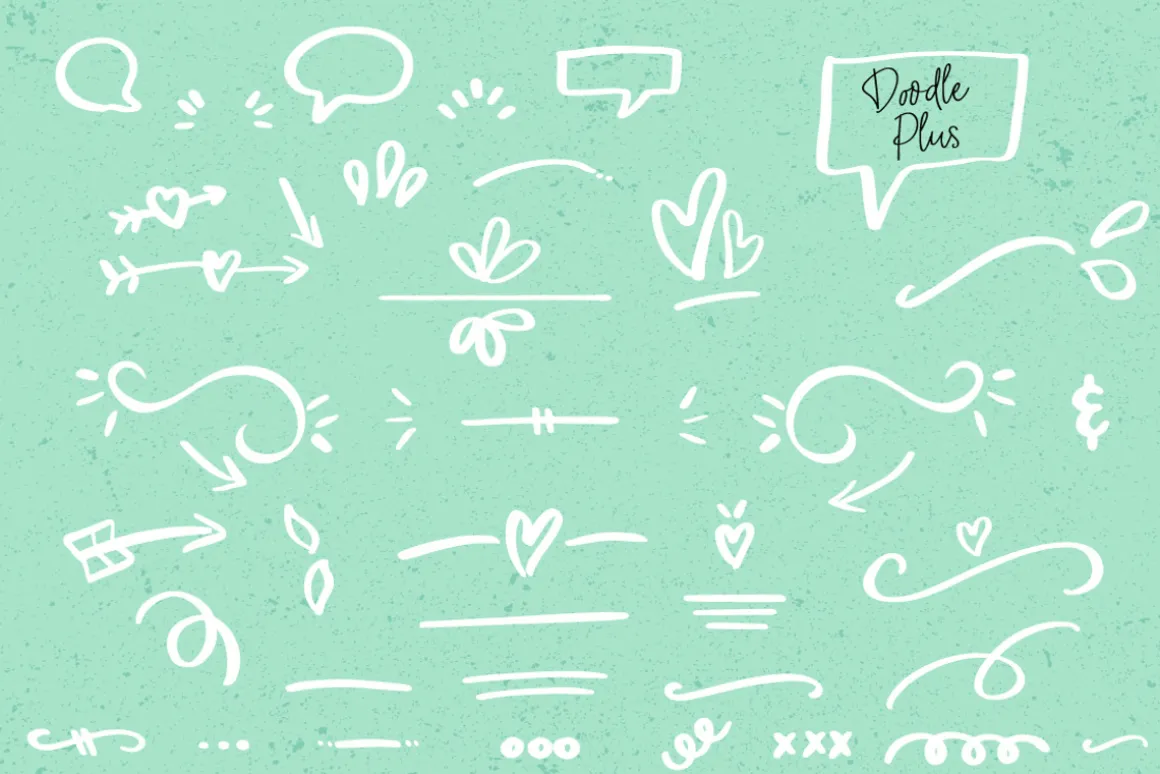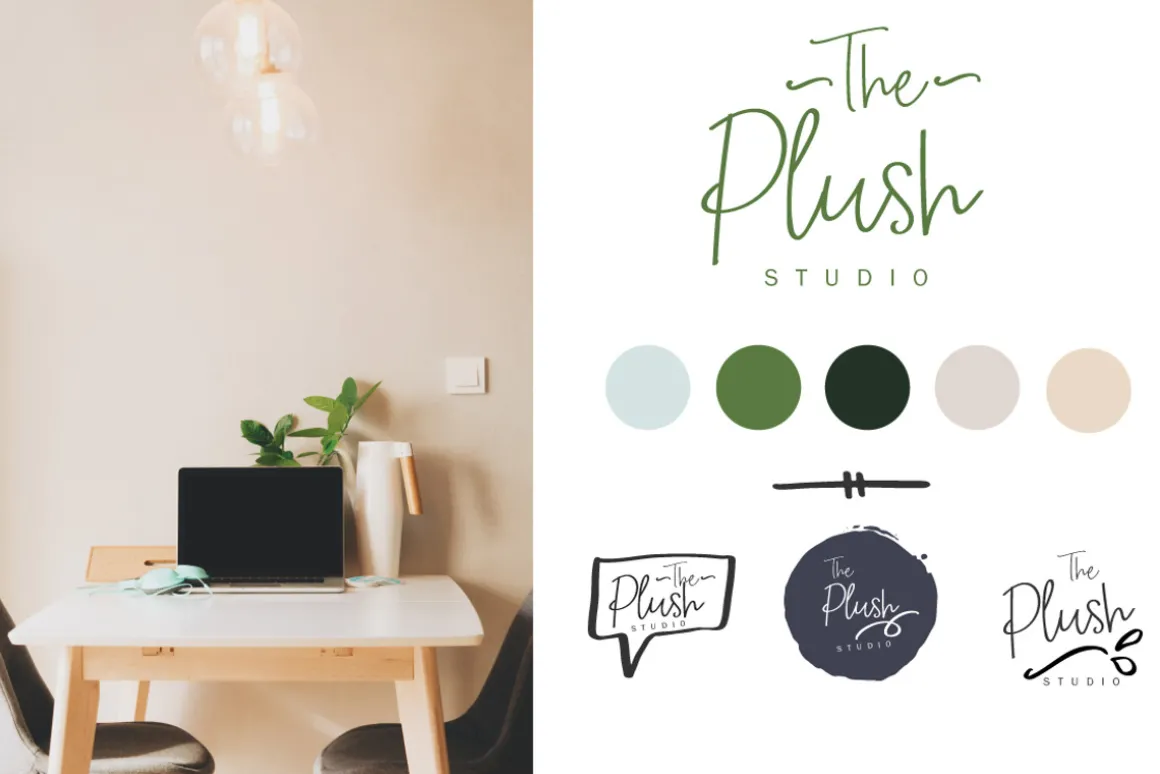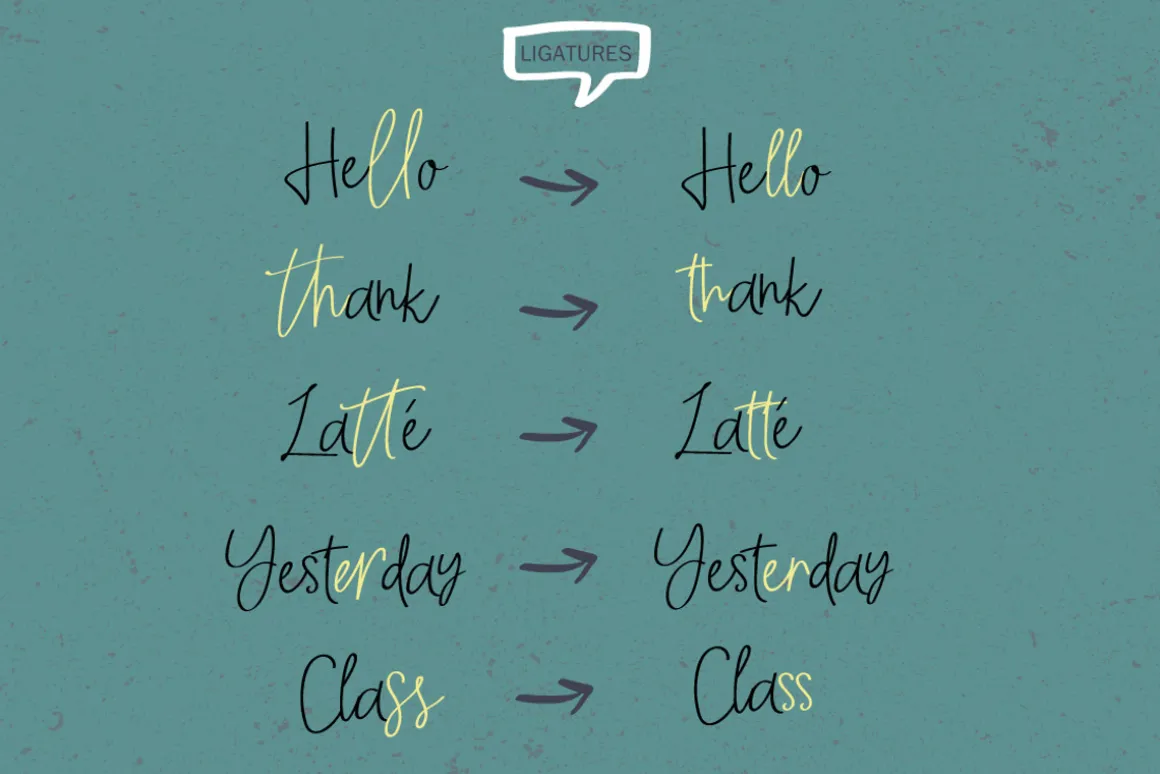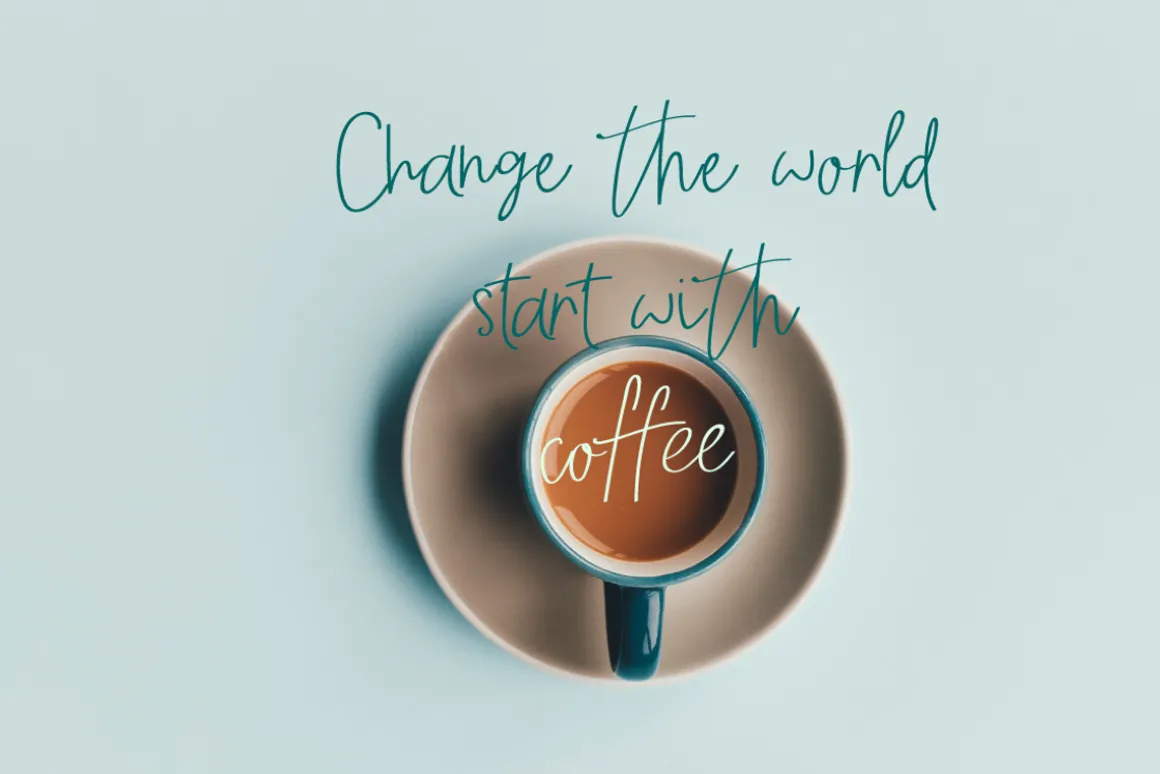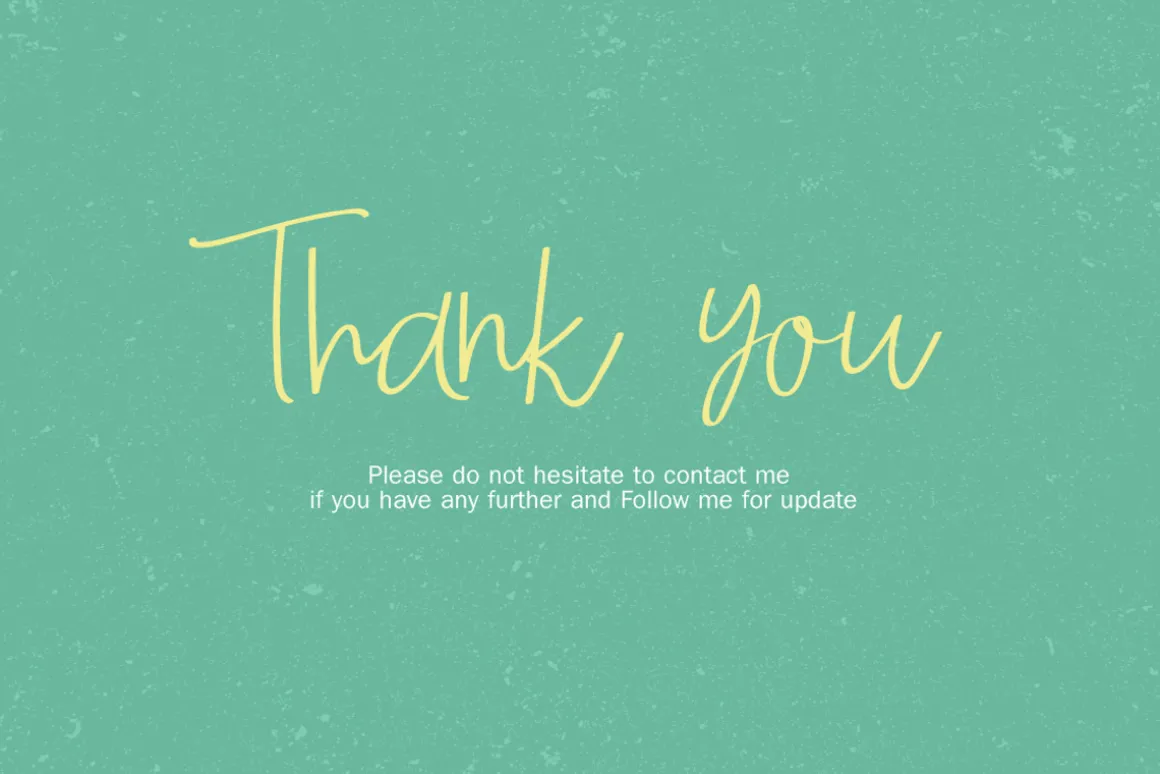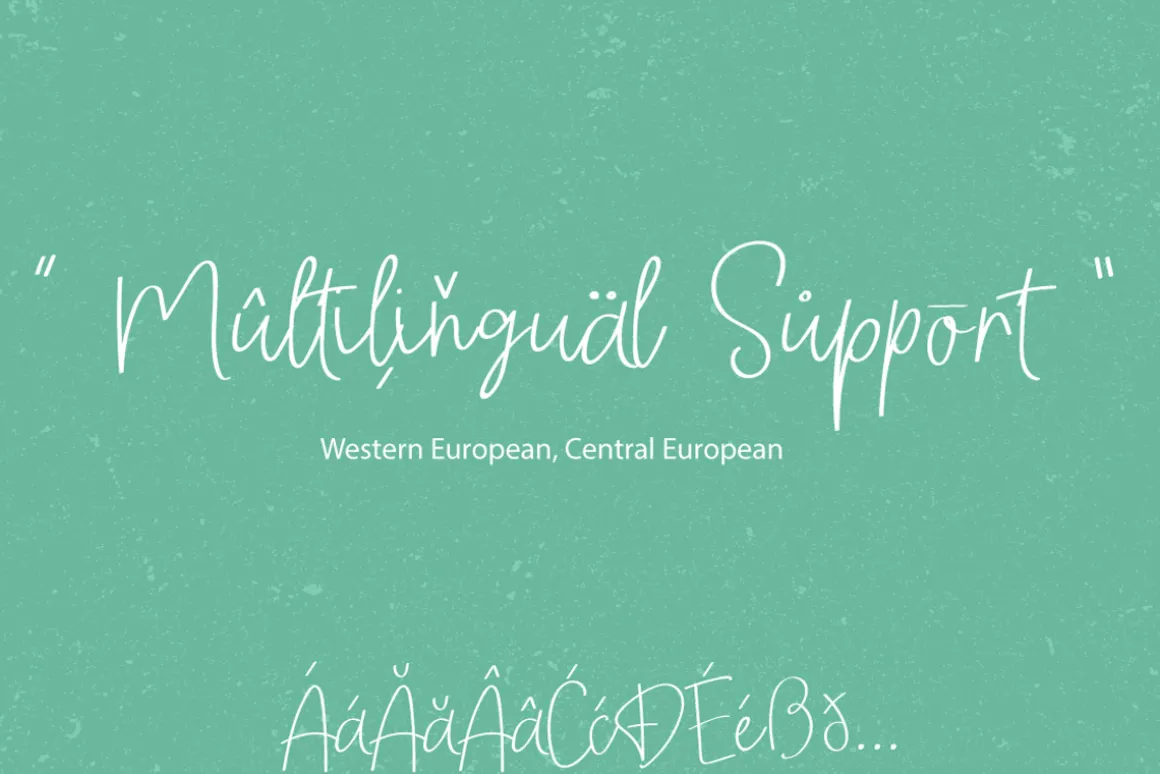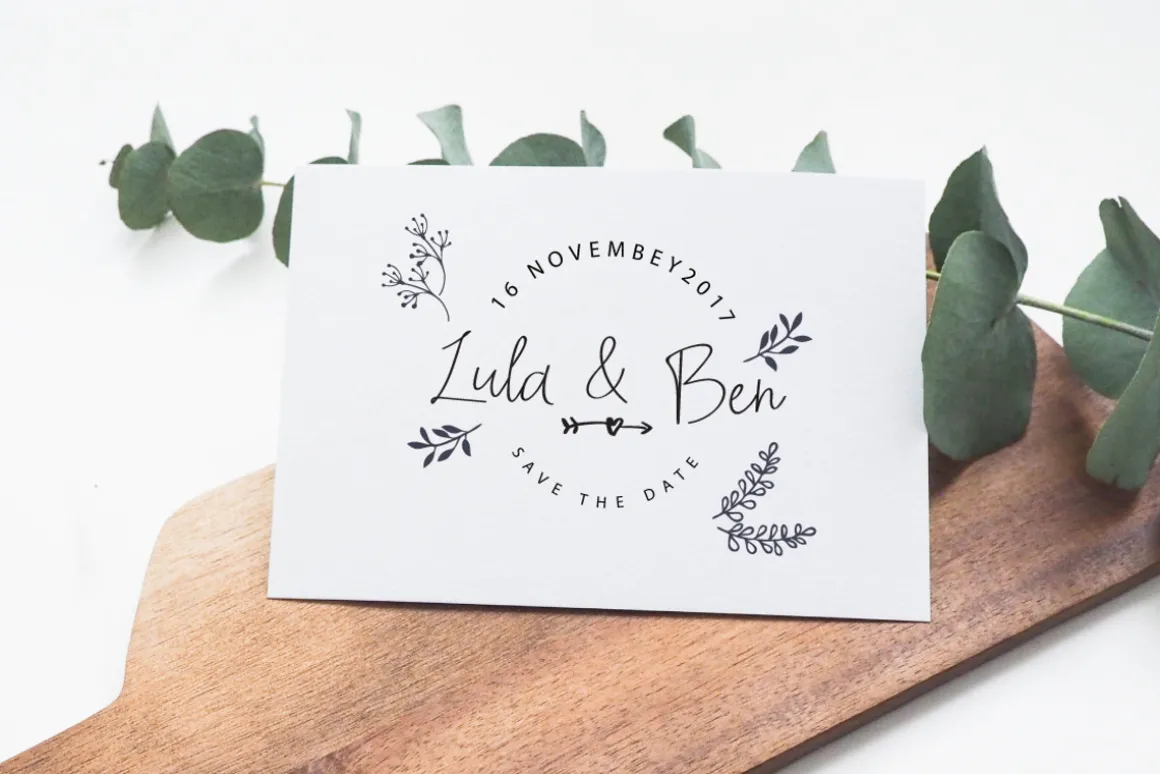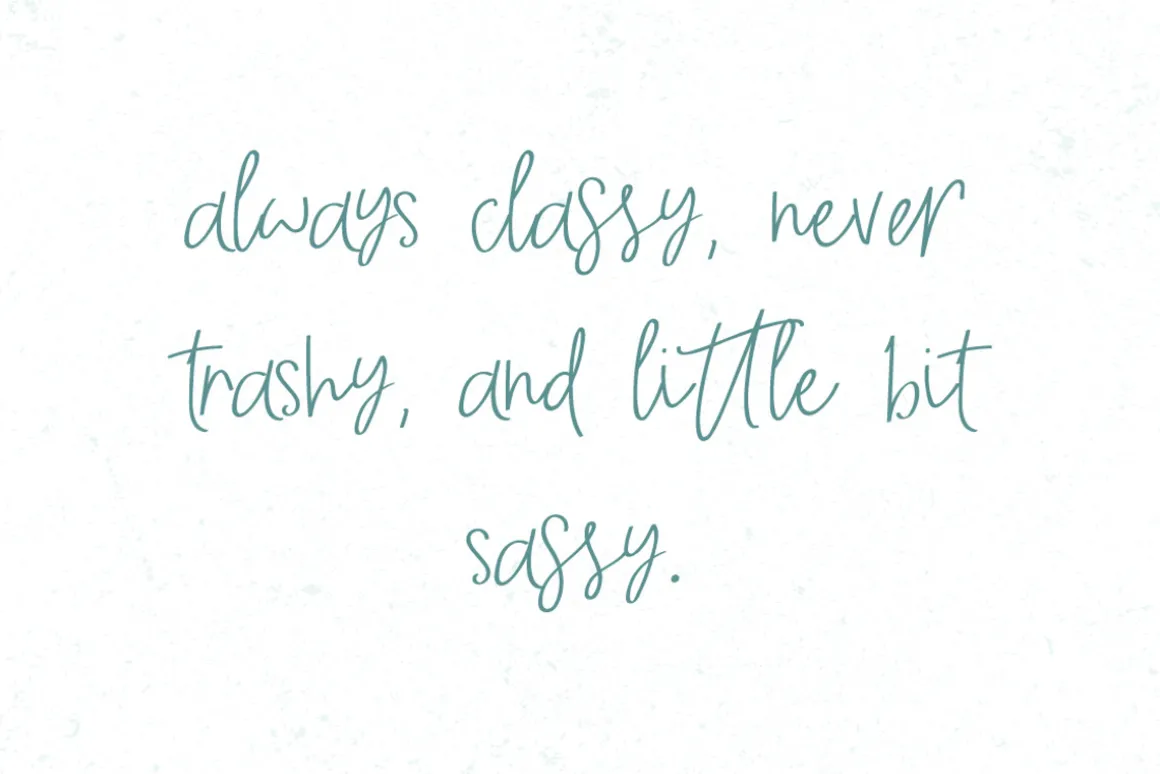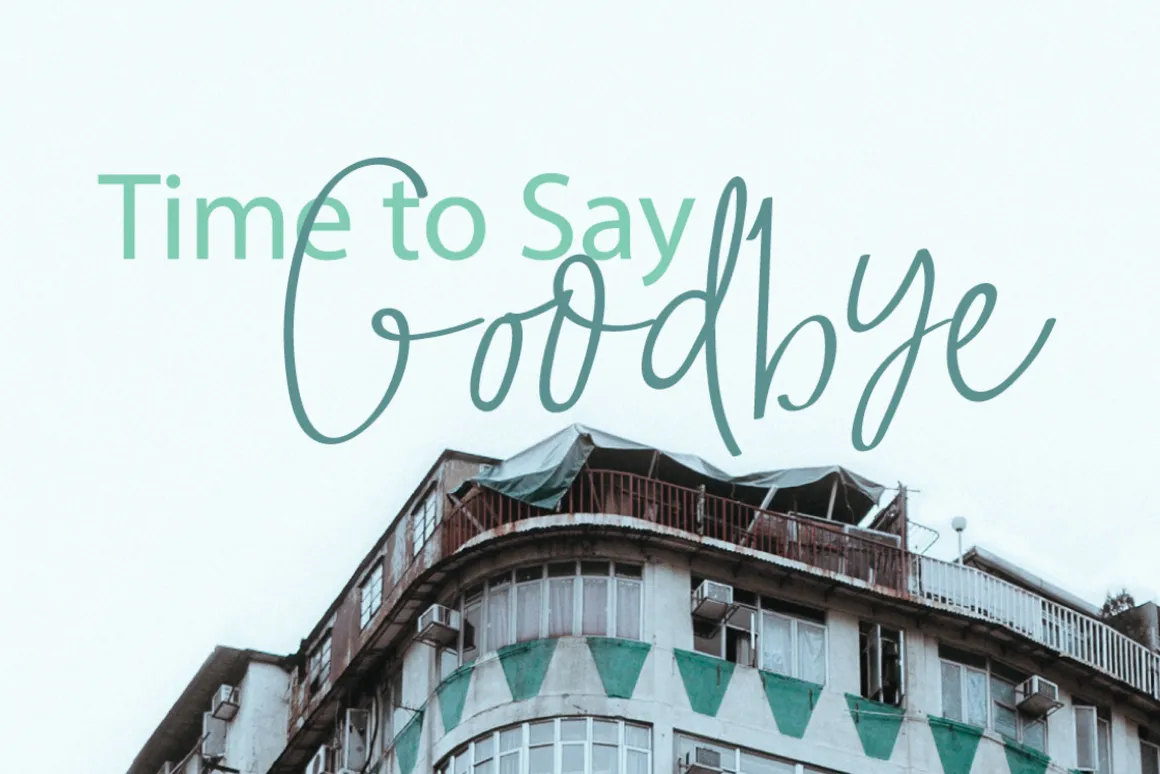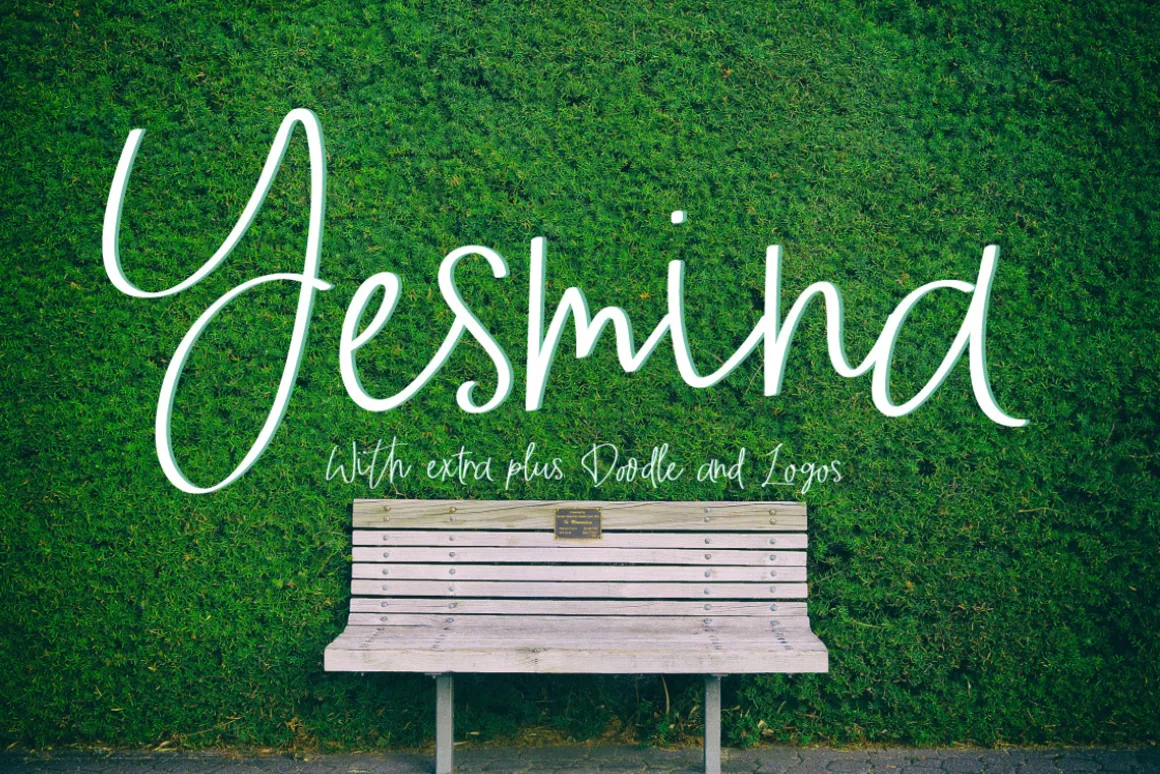
Yesmina Introducing Yesmina, It’s a fashion-forward font perfect for wedding invitation or your blog, social media posts, and messages.
Multilingual support is included for Western European and Central European Languages.Please test your characters in the font previewer below before purchase.